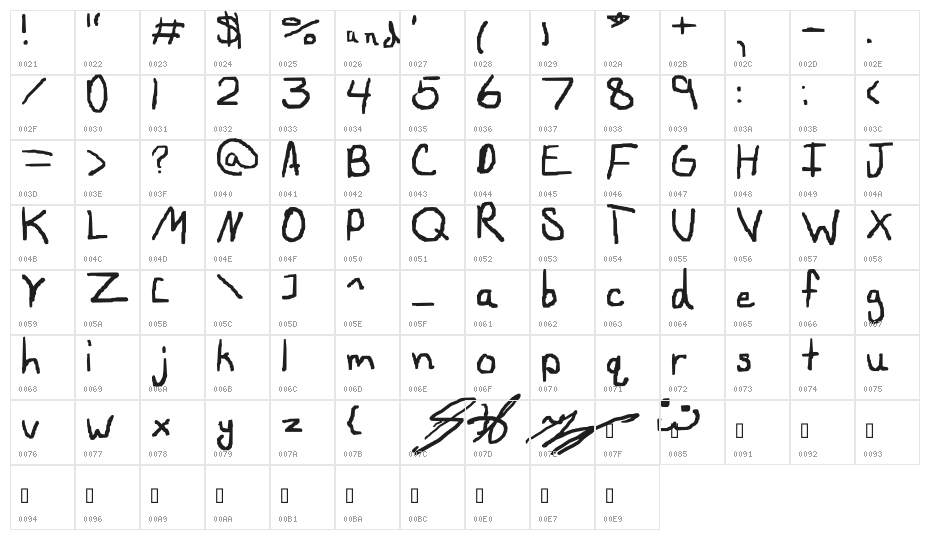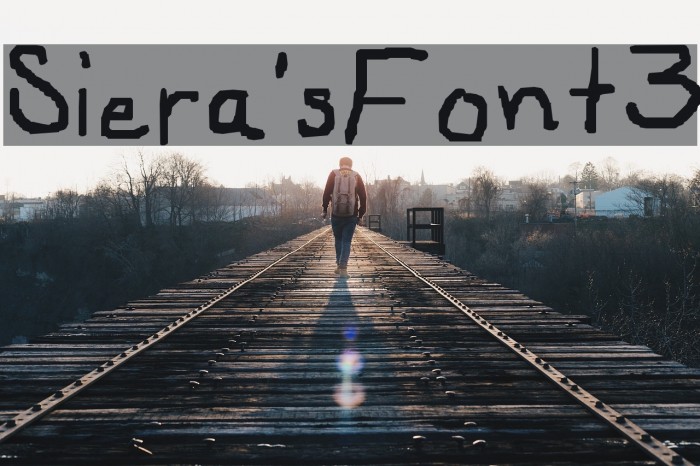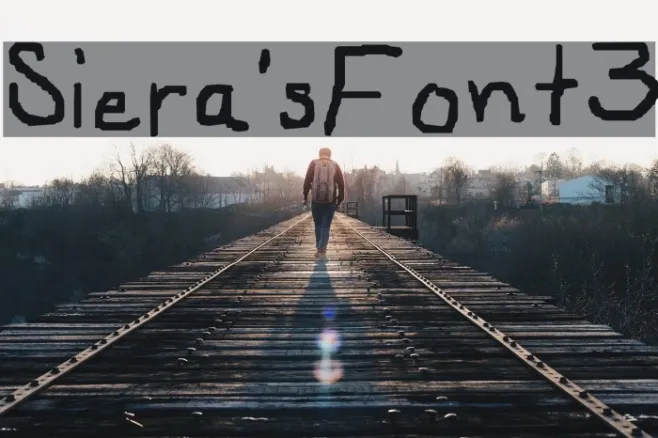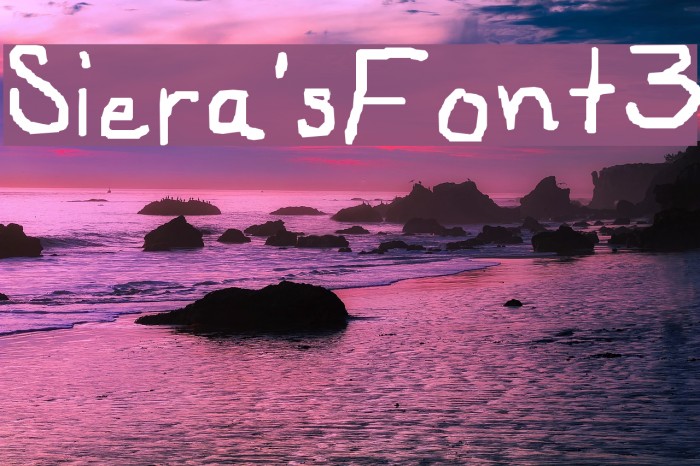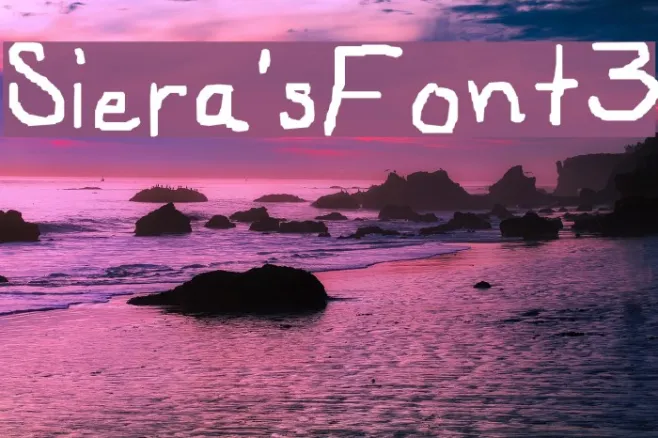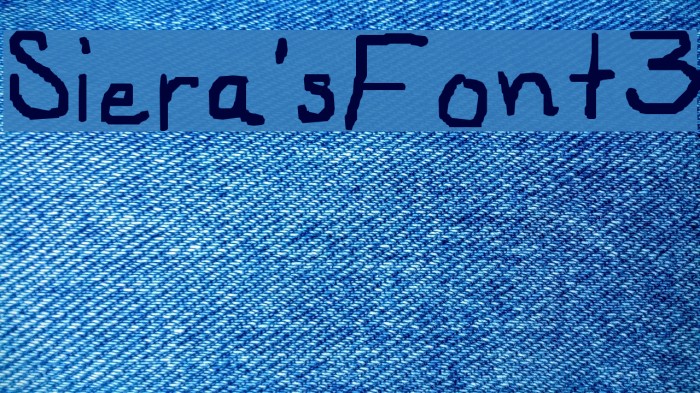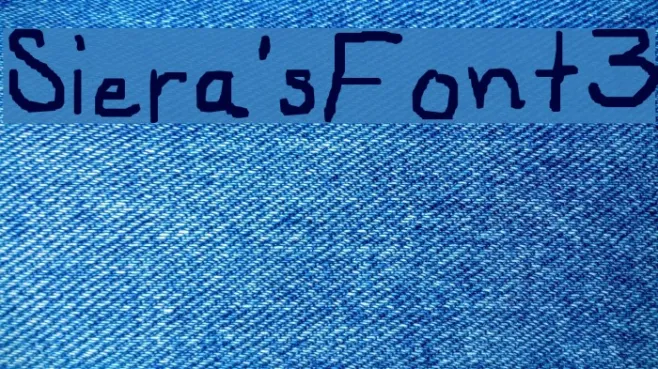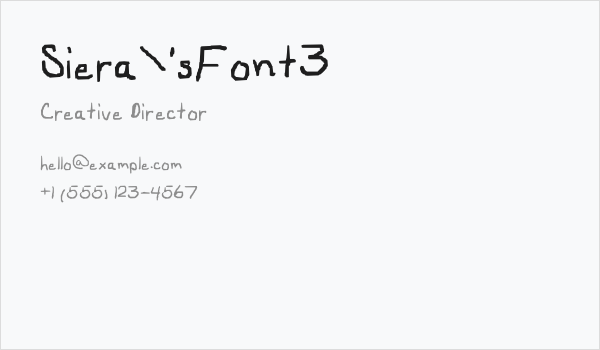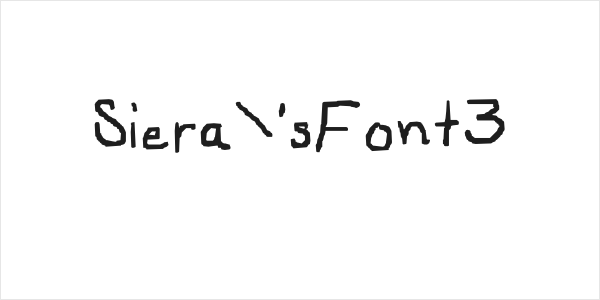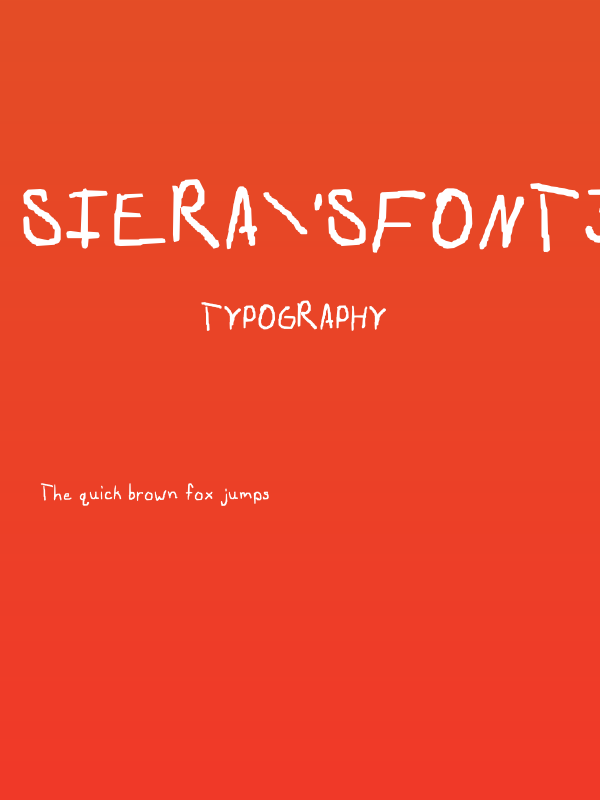
Siera'sFont3 Font
Siera'sFont3 Description
This font features a playful, handwritten style with a casual and informal appearance. The letters are unevenly spaced and vary in size, giving it a dynamic and lively feel. The strokes are thick and consistent, with a slight wobble that adds to its charm. This font captures a sense of spontaneity and creativity, making it ideal for projects that require a personal touch. The characters are easily distinguishable, with a unique flair in each letterform, particularly noticeable in the lowercase letters. The numerals and special characters maintain the same whimsical style, ensuring a cohesive look across all text.